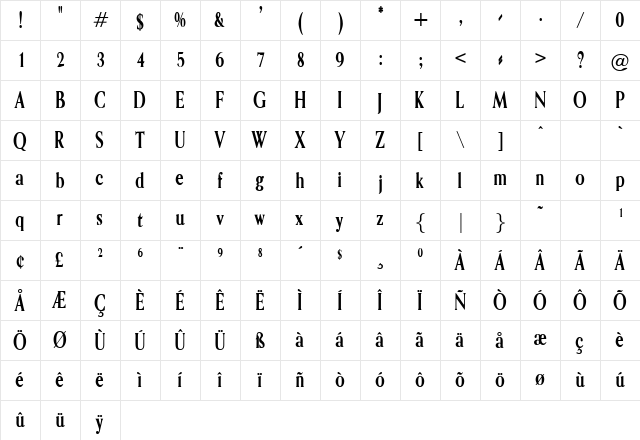
Opalone Regular
Design Context for Opalone Typeface
Opalone offers clean, dependable letterforms without strong stylistic allegiance, making it a practical choice for designers who need flexibility.
Pro Tip: Use Opalone in both headline and body roles to test its range before committing to a single application.